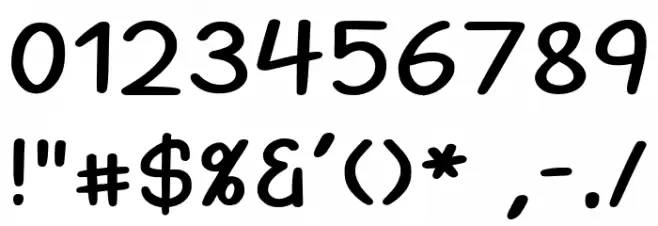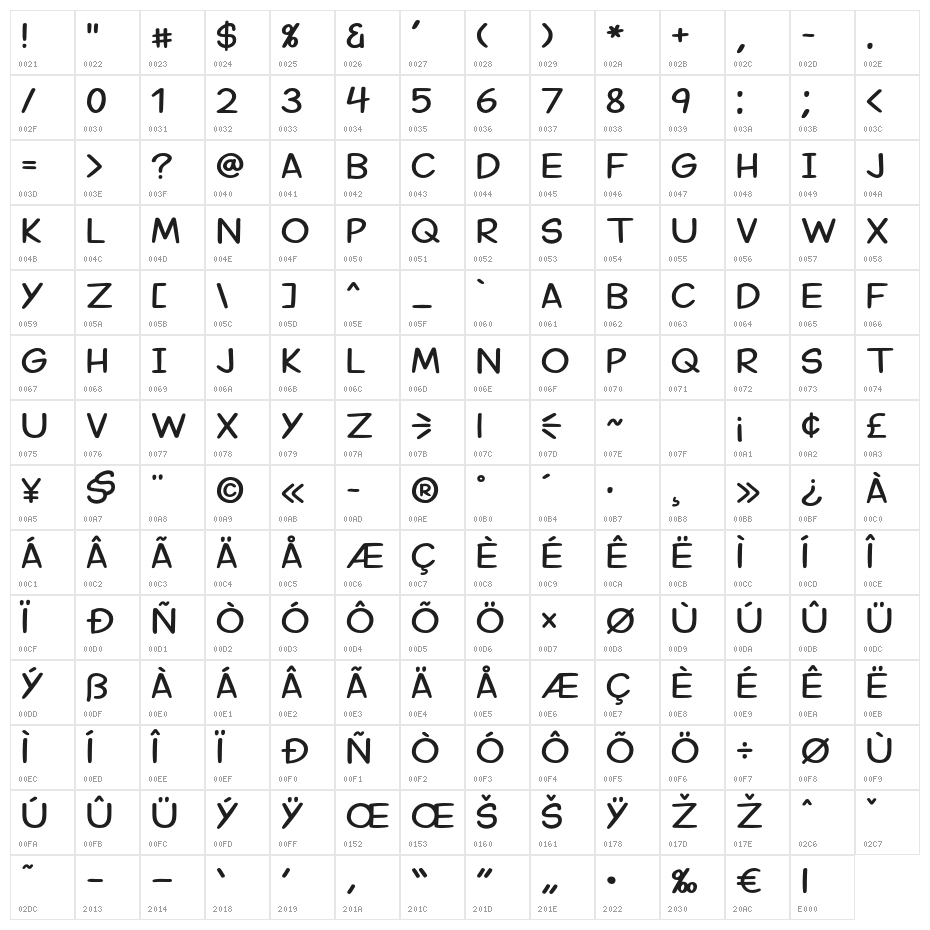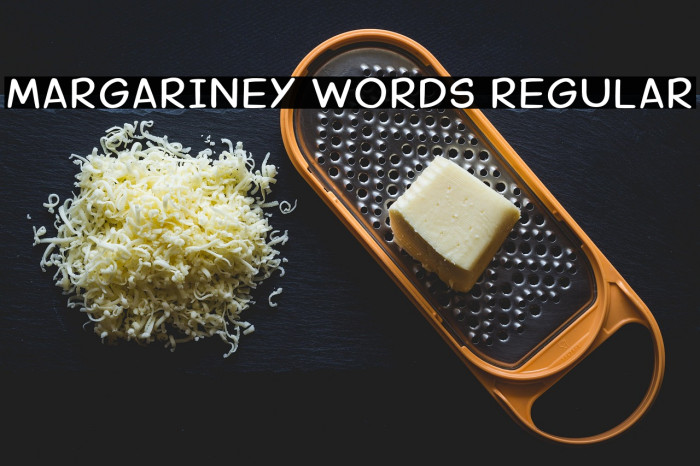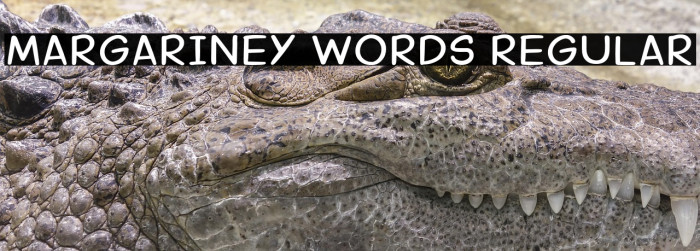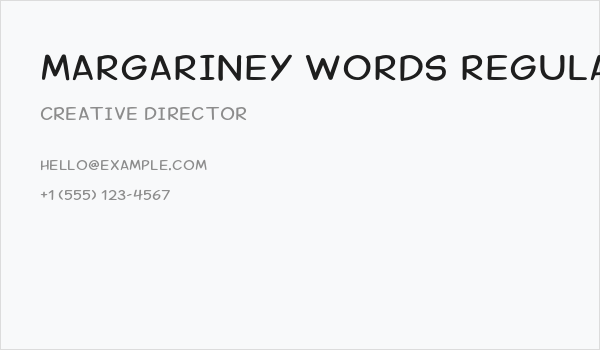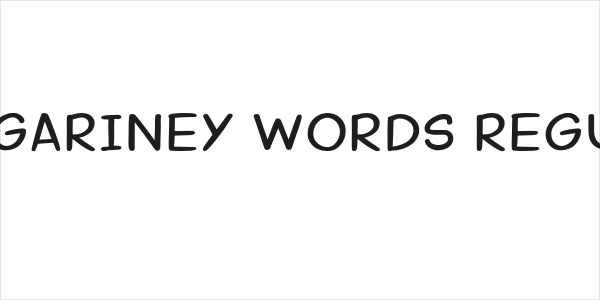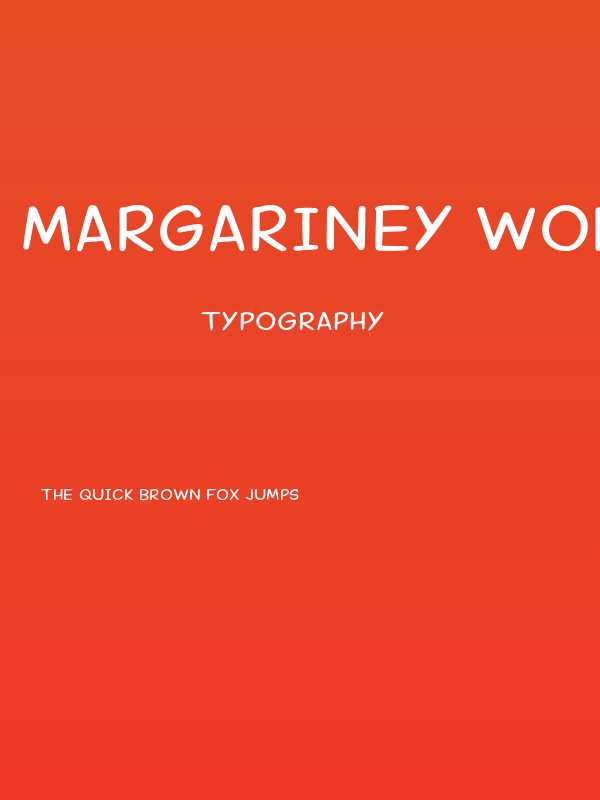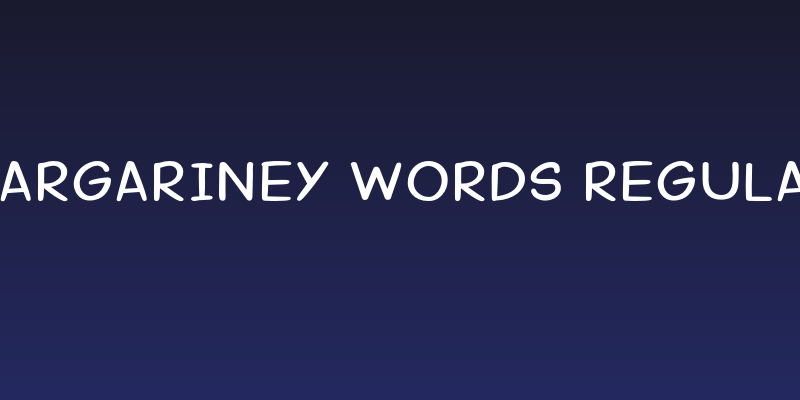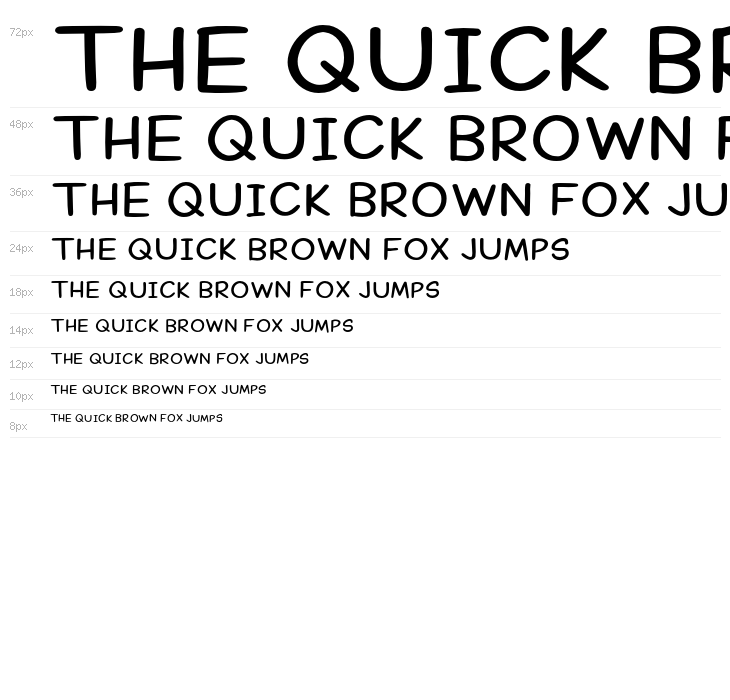
Margariney Words Regular Font
Margariney Words Regular Description
This font features a playful and casual handwritten style, characterized by its rounded and smooth letterforms. The characters have a consistent stroke width, giving it a uniform appearance. The uppercase and lowercase letters are well-balanced, with a slight slant that adds to its informal charm. The numerals and special characters maintain the same playful aesthetic, making it versatile for various design needs. Its friendly and approachable look makes it suitable for projects that require a personal touch.
| Use Case | Headlines, Logos, Informal text |
| Proposed Projects | Ideal for greeting cards, children's books, casual branding, and social media graphics. |